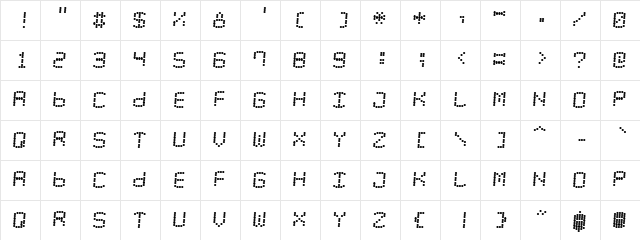
LED Counter Plus 7 Italic
| Foundry | Style-7 |
| Designer | Sizenko Alexander |
Design Context for LED Counter Plus 7 Typeface
LED Counter Plus 7 is a composed and adaptable typeface that performs quietly and consistently across a wide range of design contexts. The slanted form adds forward momentum and visual energy.
Pro Tip: Use LED Counter Plus 7 for emphasis, pull quotes, and subheadings where its slanted energy can add rhythm to the layout.